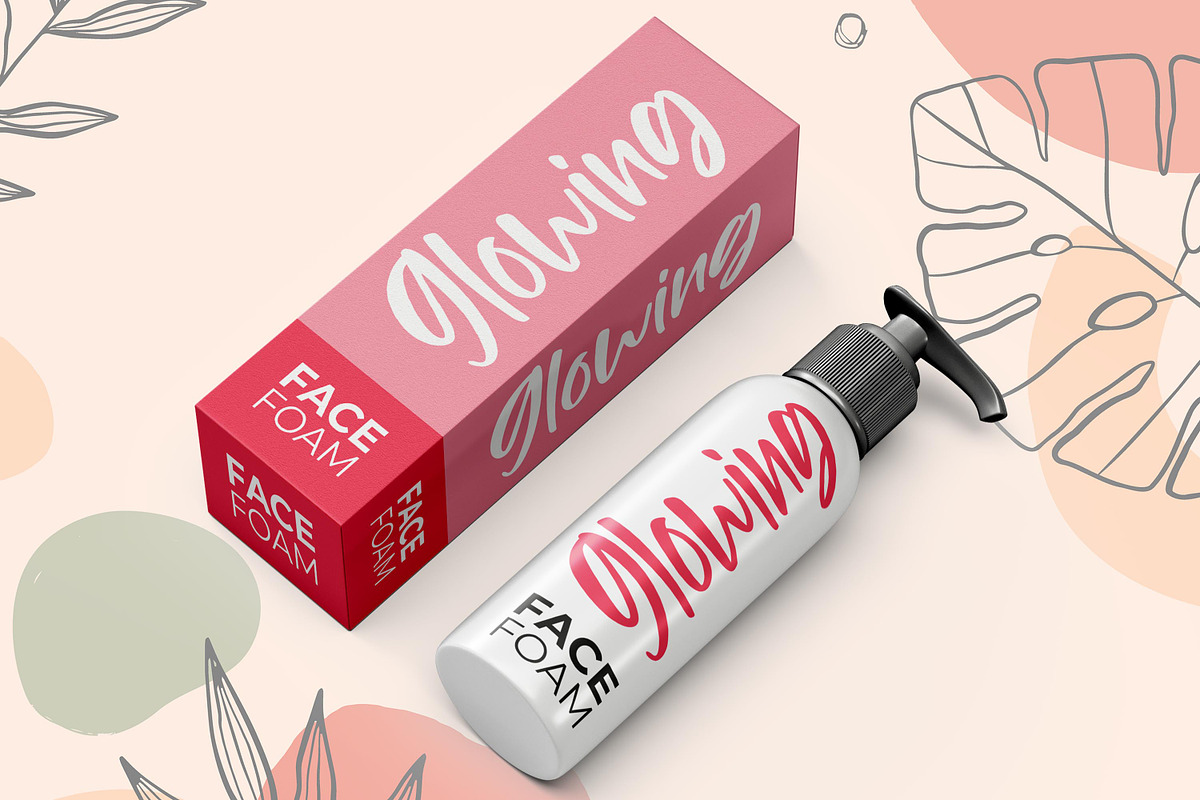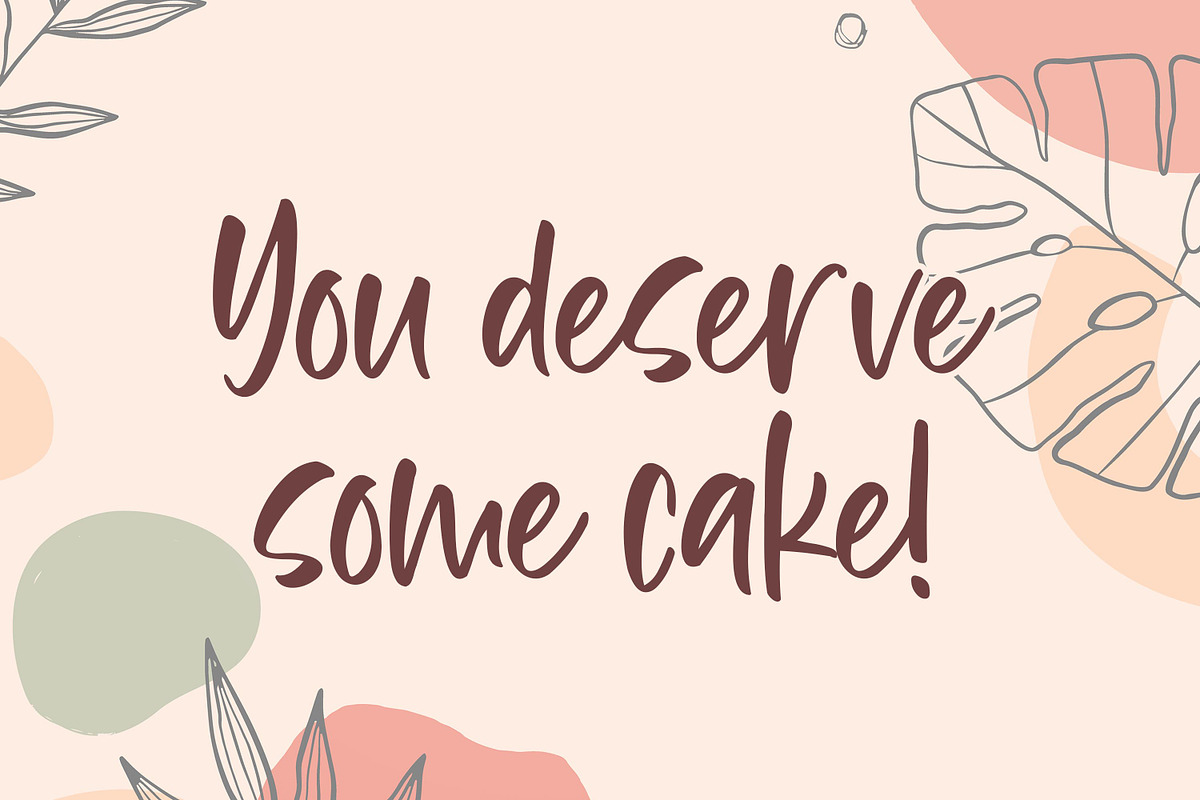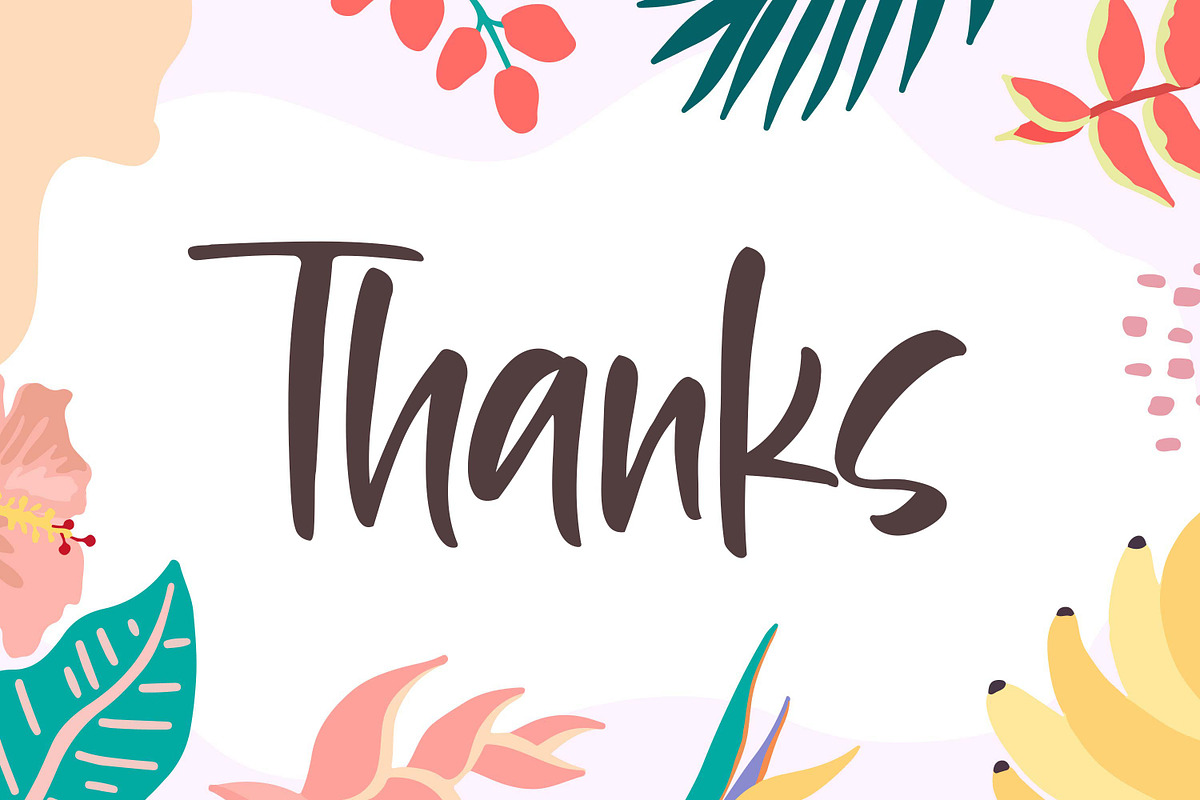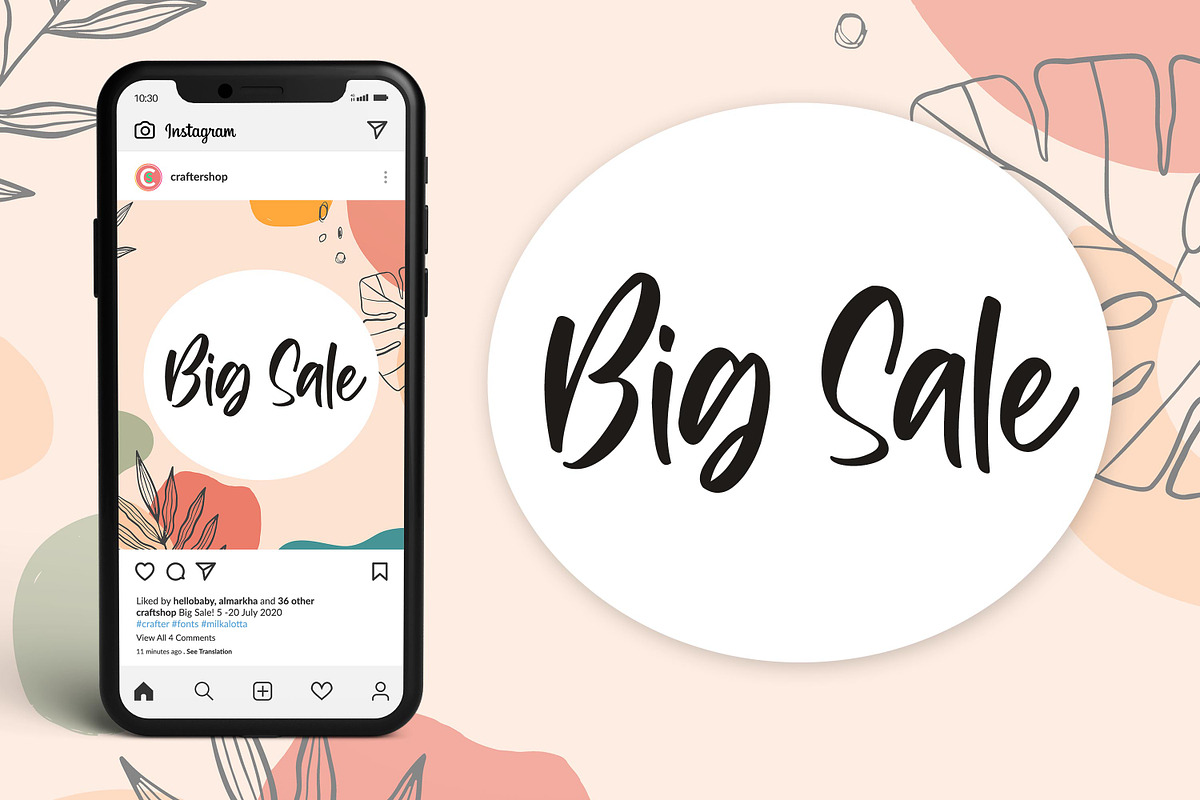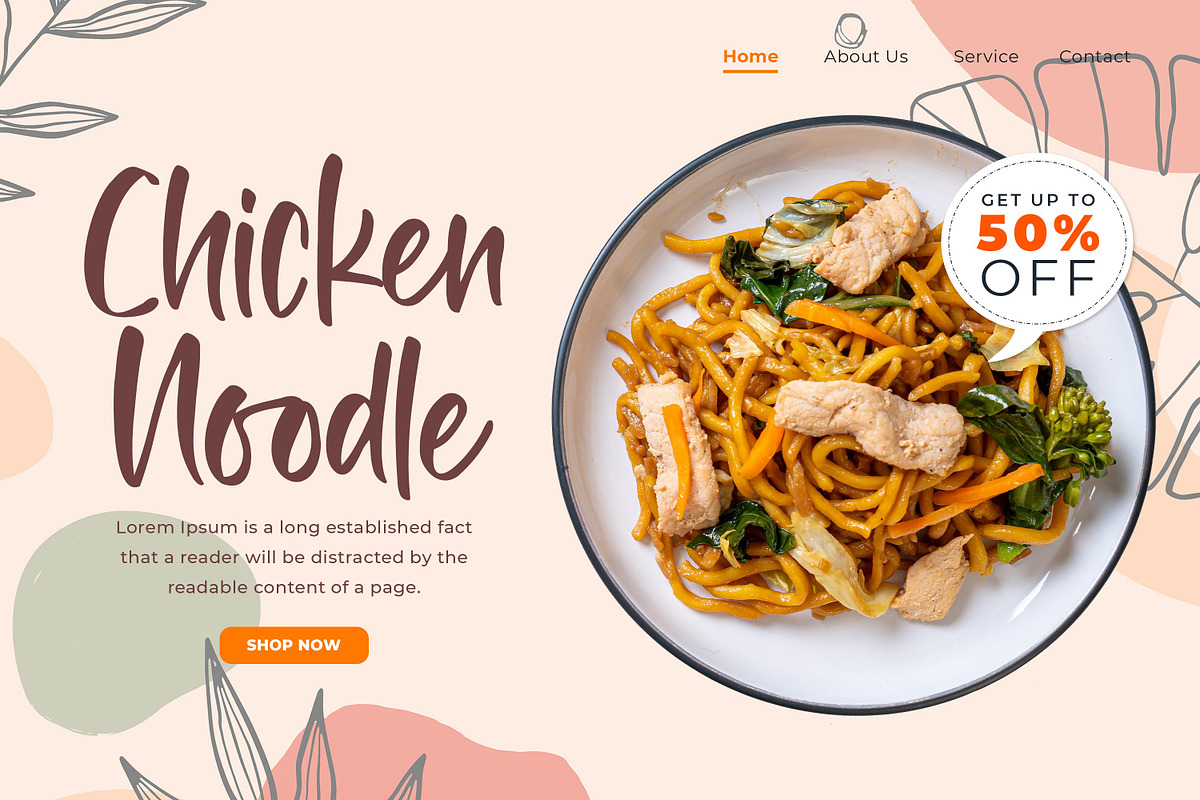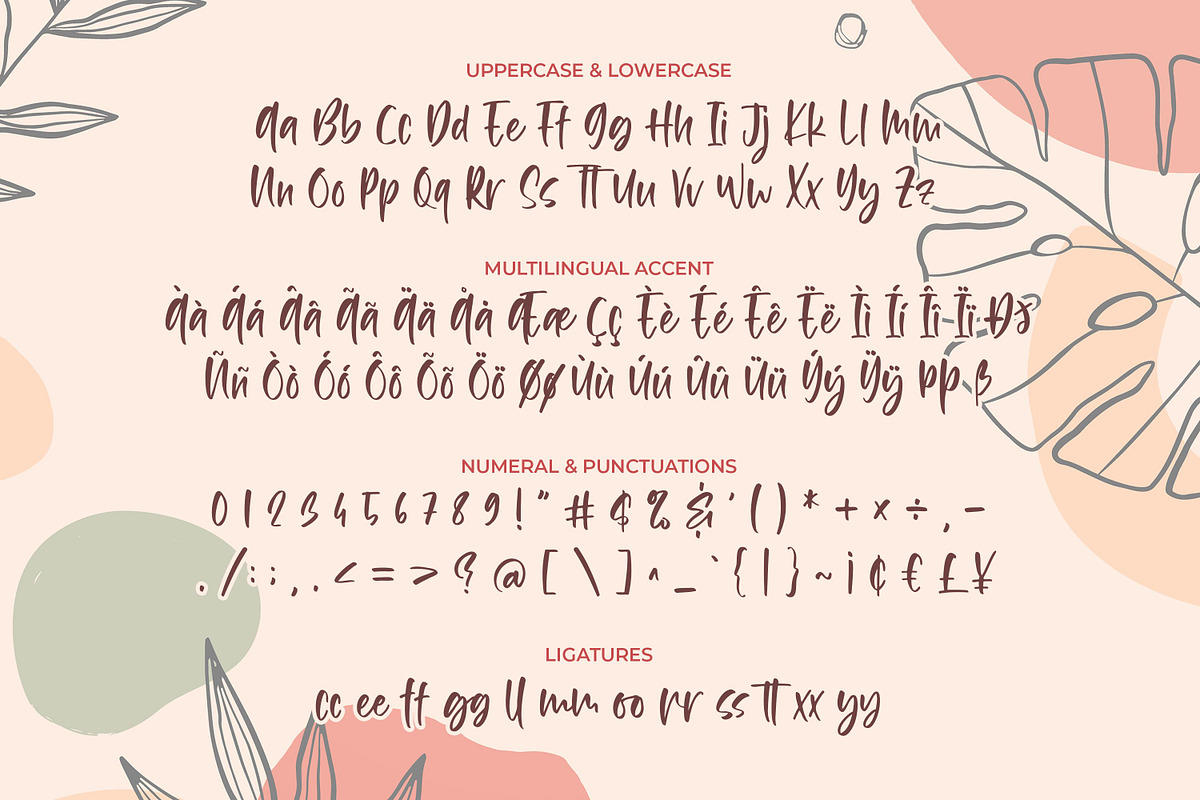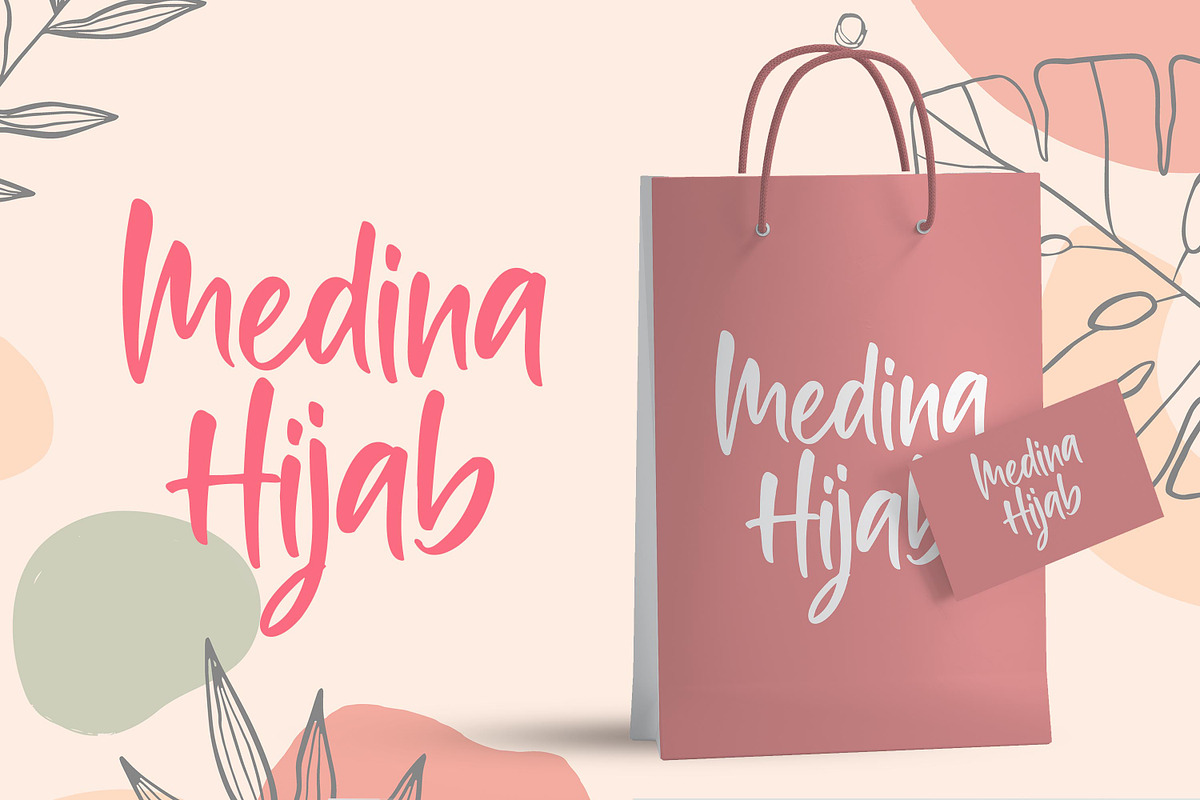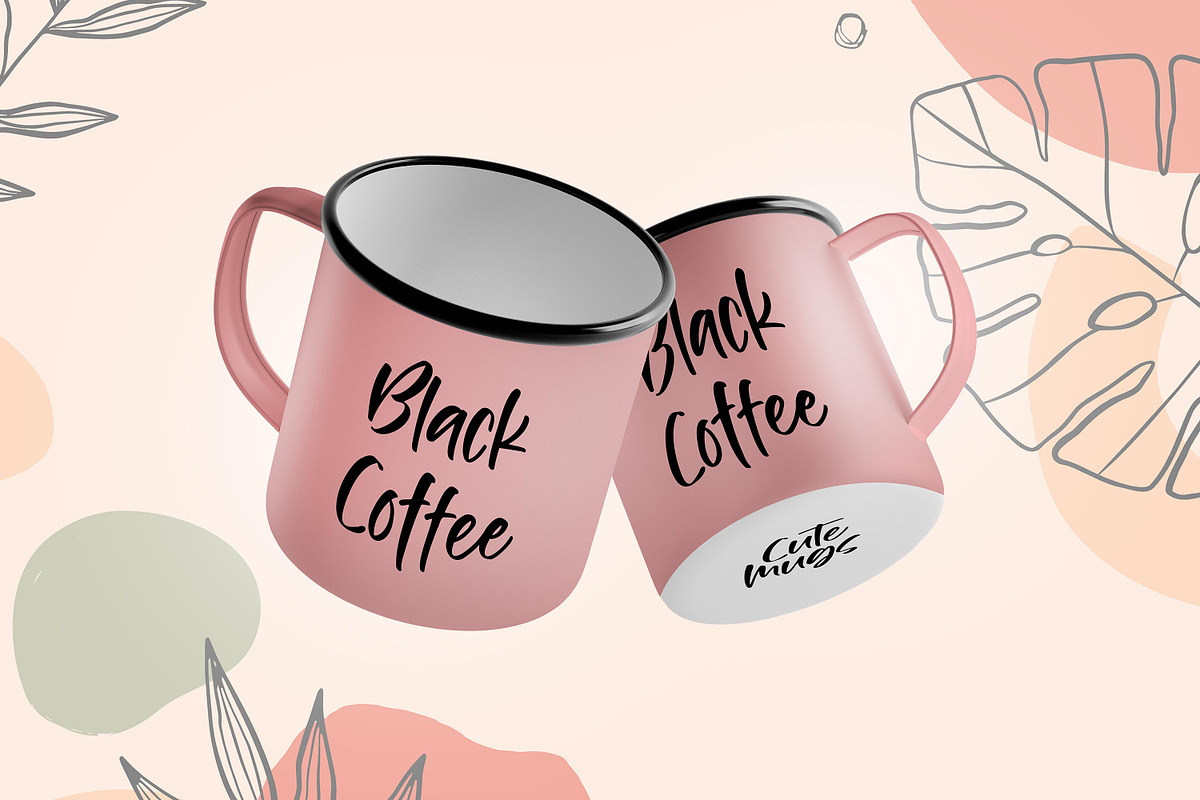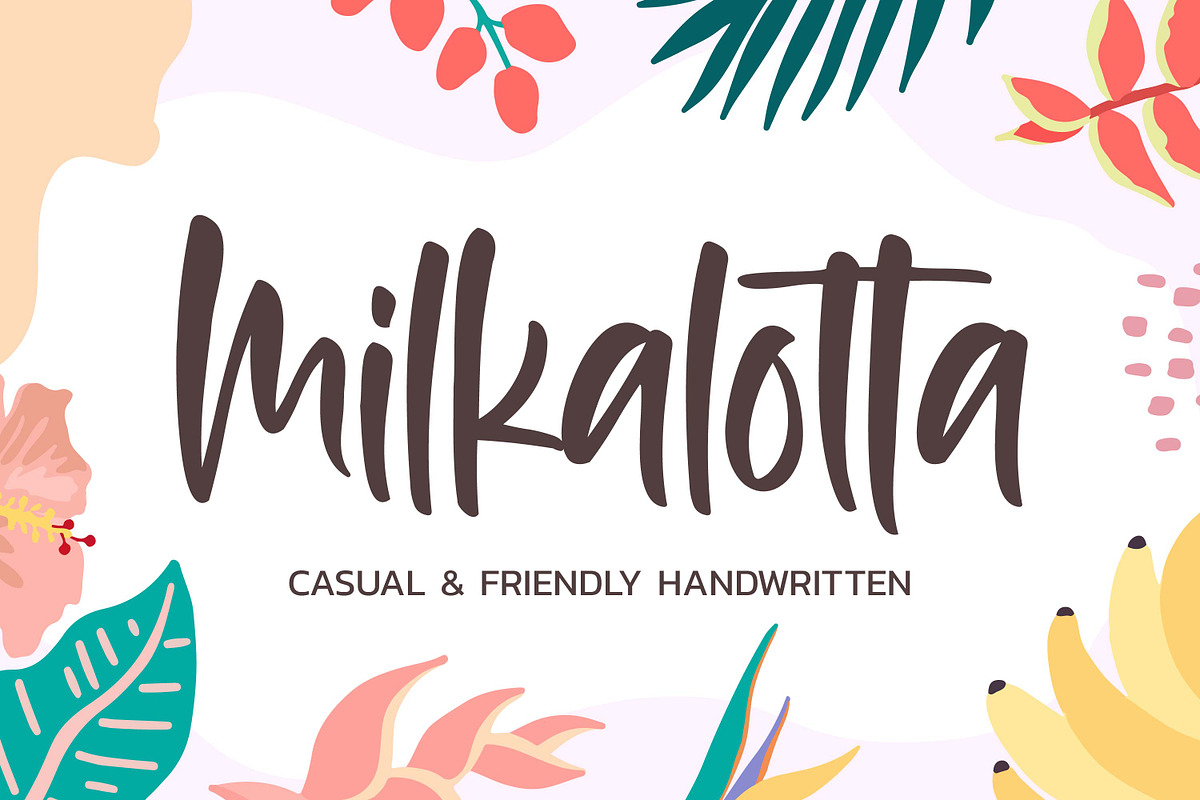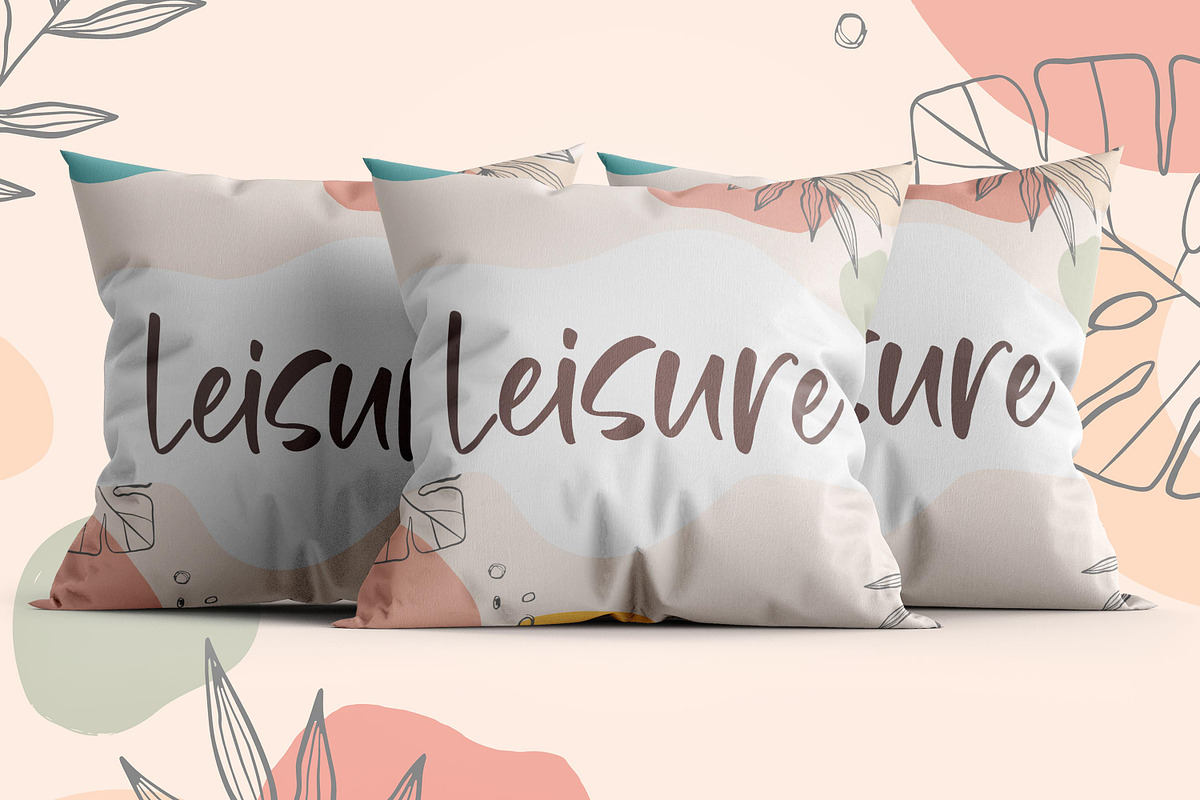
Milkalotta - Casual & Friendly
Milkalotta – is a Cute & Authentic Script font with a natural handwritten feel. This handmade font will make your design has a beautiful natural touch for each details. It is perfect for any design project as Invitation,logo, book cover, craft or any design purposes. This font is PUA encoded which means you can access all of the magical glyphs and swashes with ease! It also features a wealth of special features including alternate glyphs and ligatures. What’s Included :